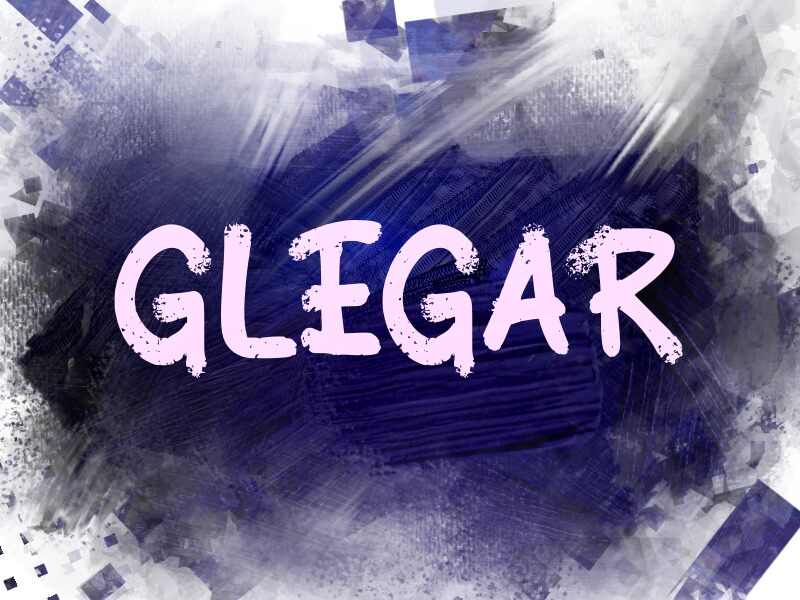
GLEGAR
Glegar font by wep is a bold brush font that channels a playful and informal style through an artistic flair. This free font has a dynamic flow with rough textures typical for brushes, which gives it the casual smoothness everyone loves. Its natural look exactly matches the rhythm of handwriting while adding more personality to the context.
Being readable, simple, and elegant makes Glegar a great choice for branding projects with prominence given on posters, flyers, or business cards. Avoid long texts but definitely use it in social media posts, unique magazines’ titles, books covers and others.